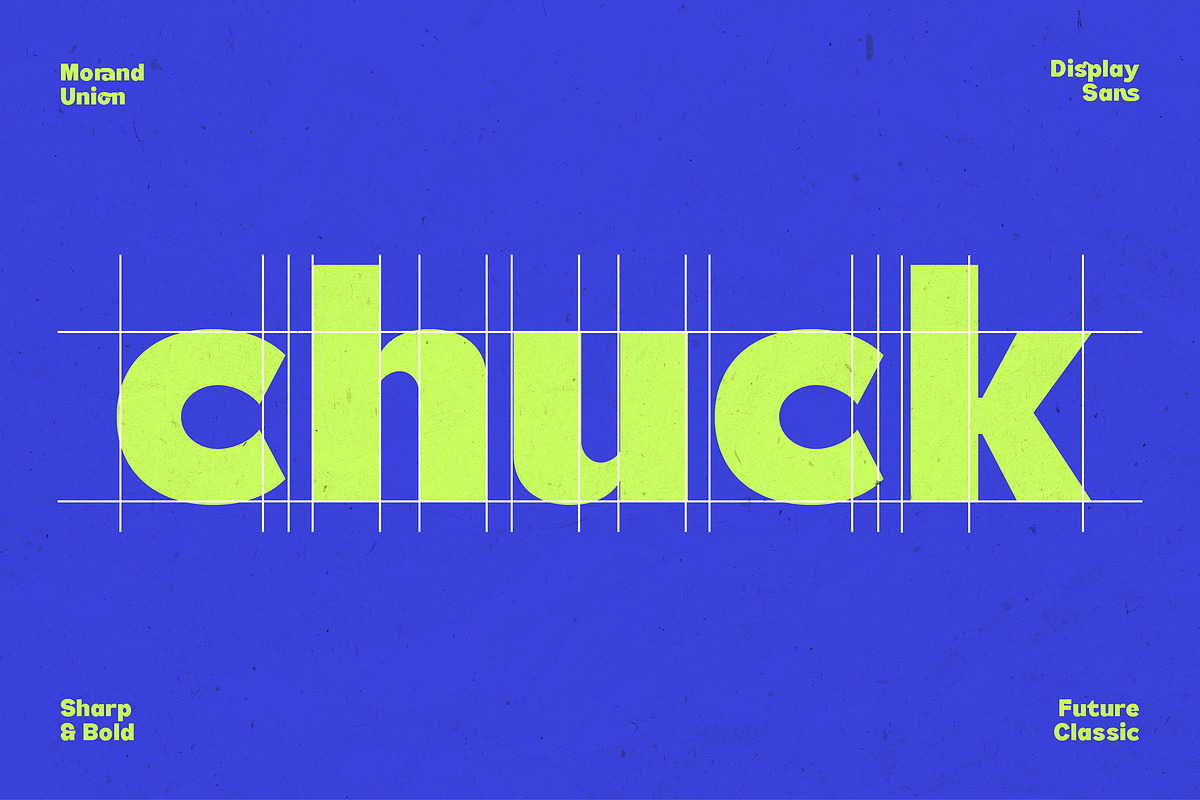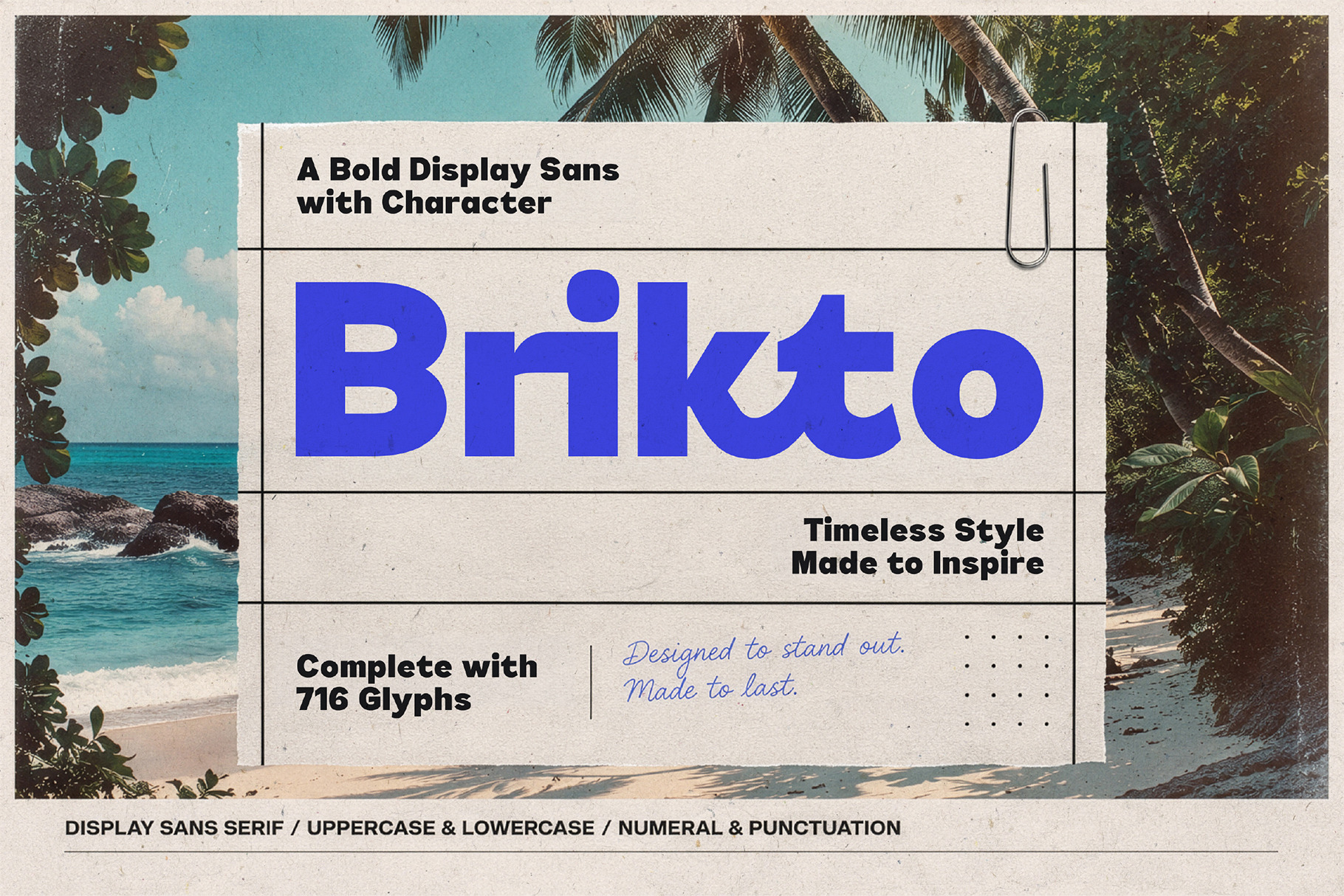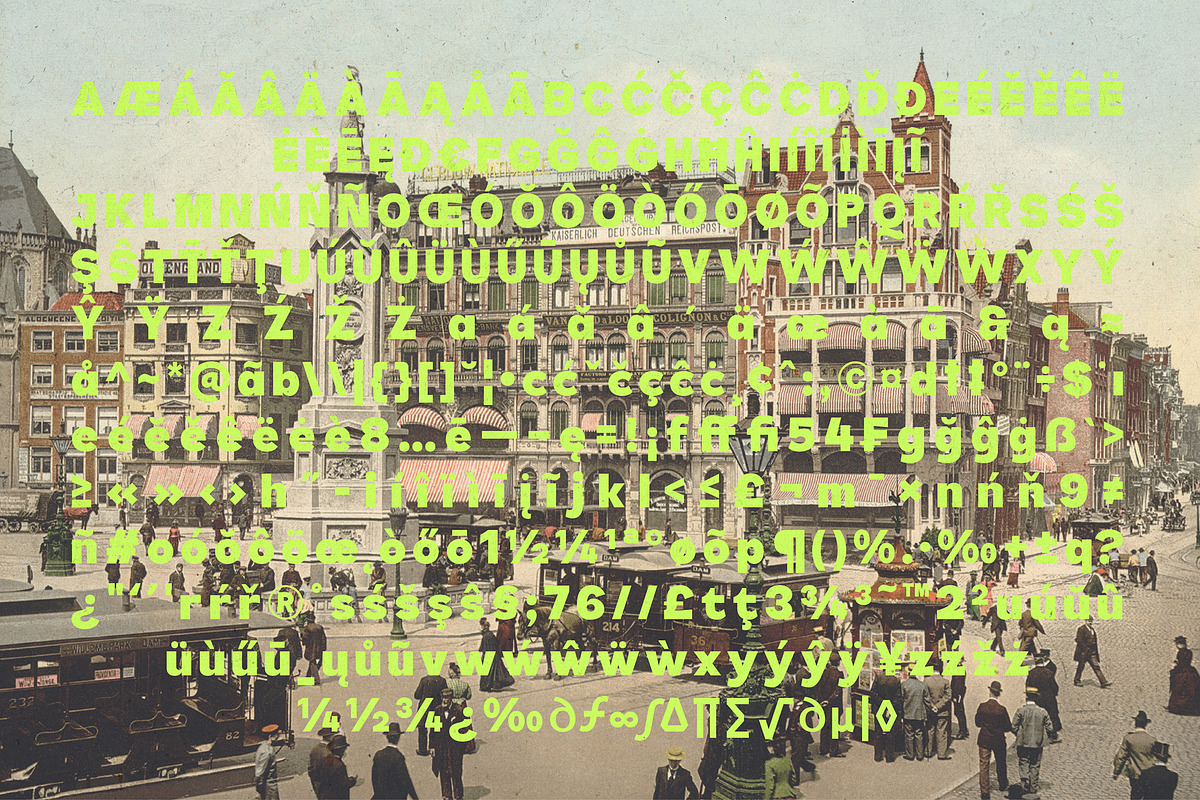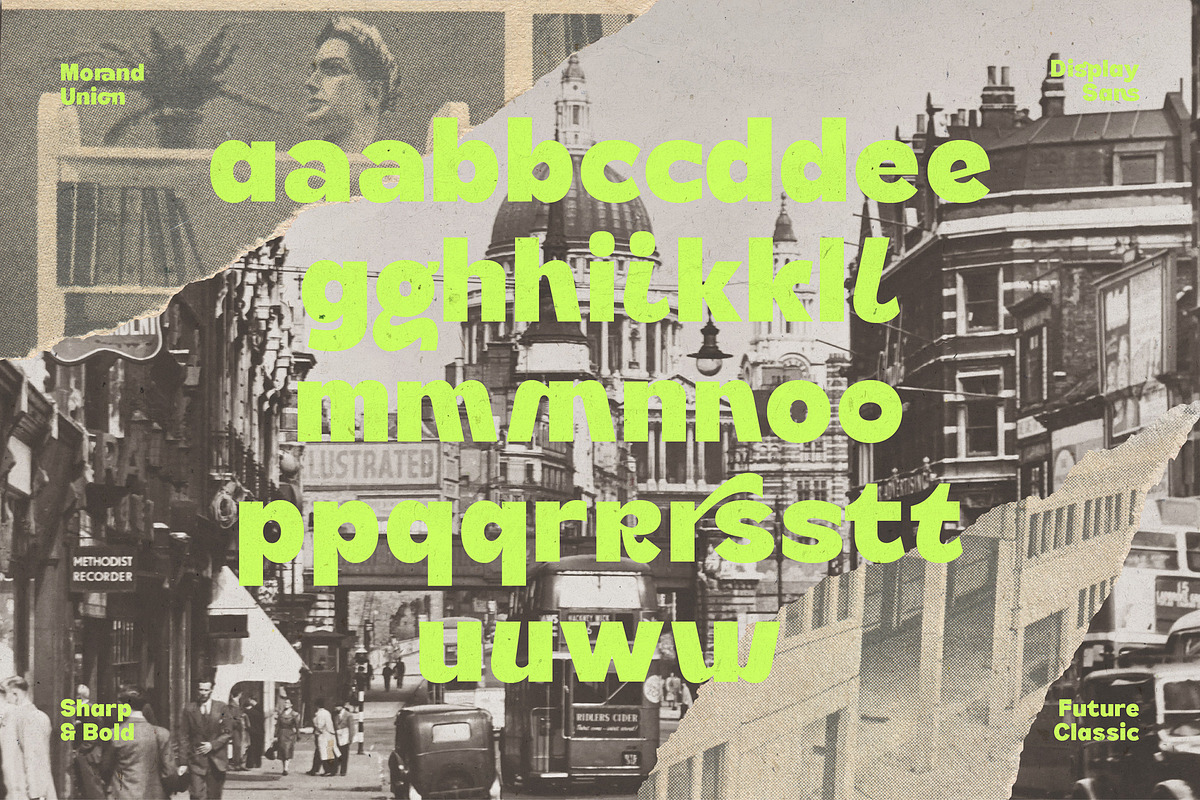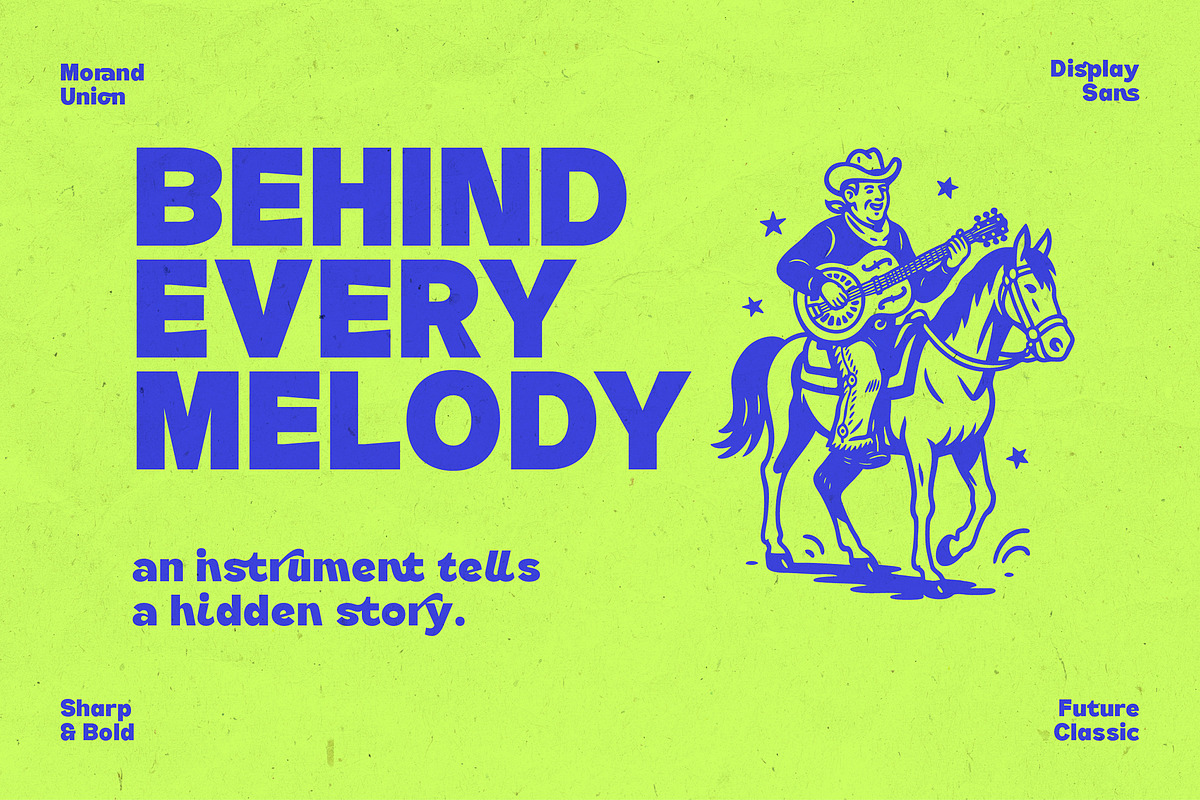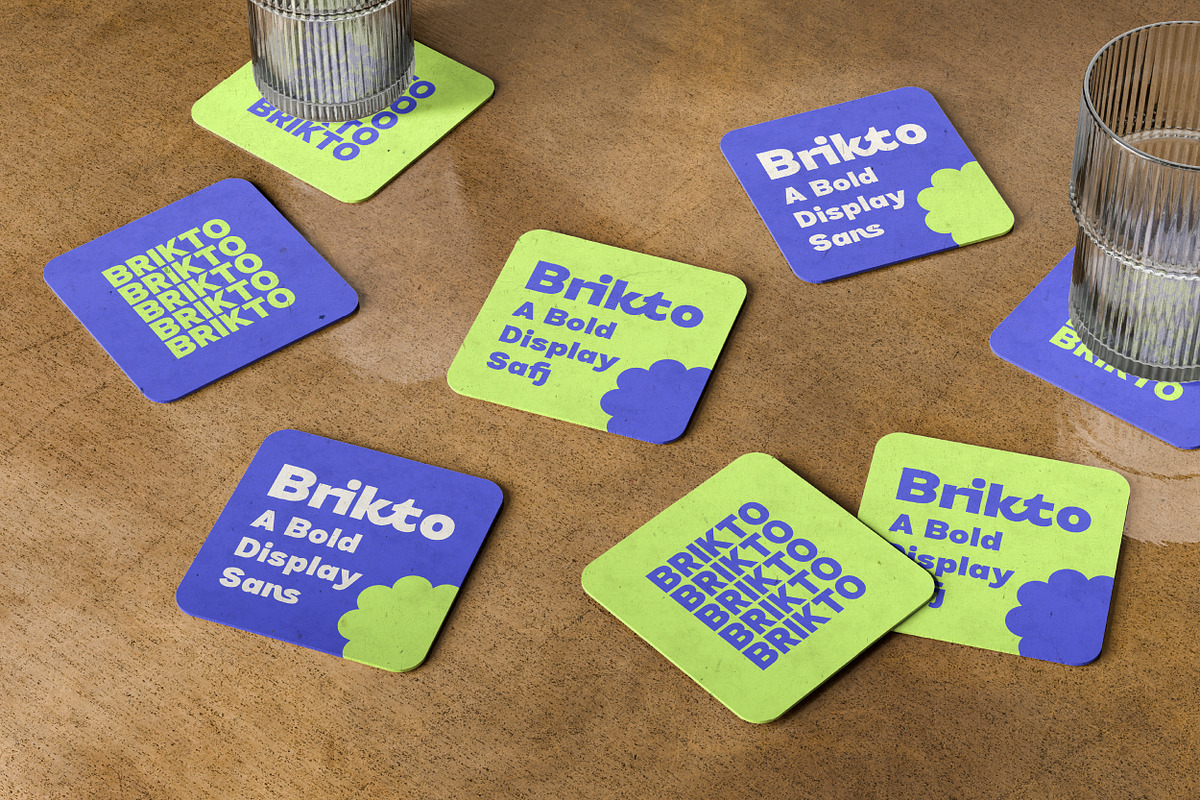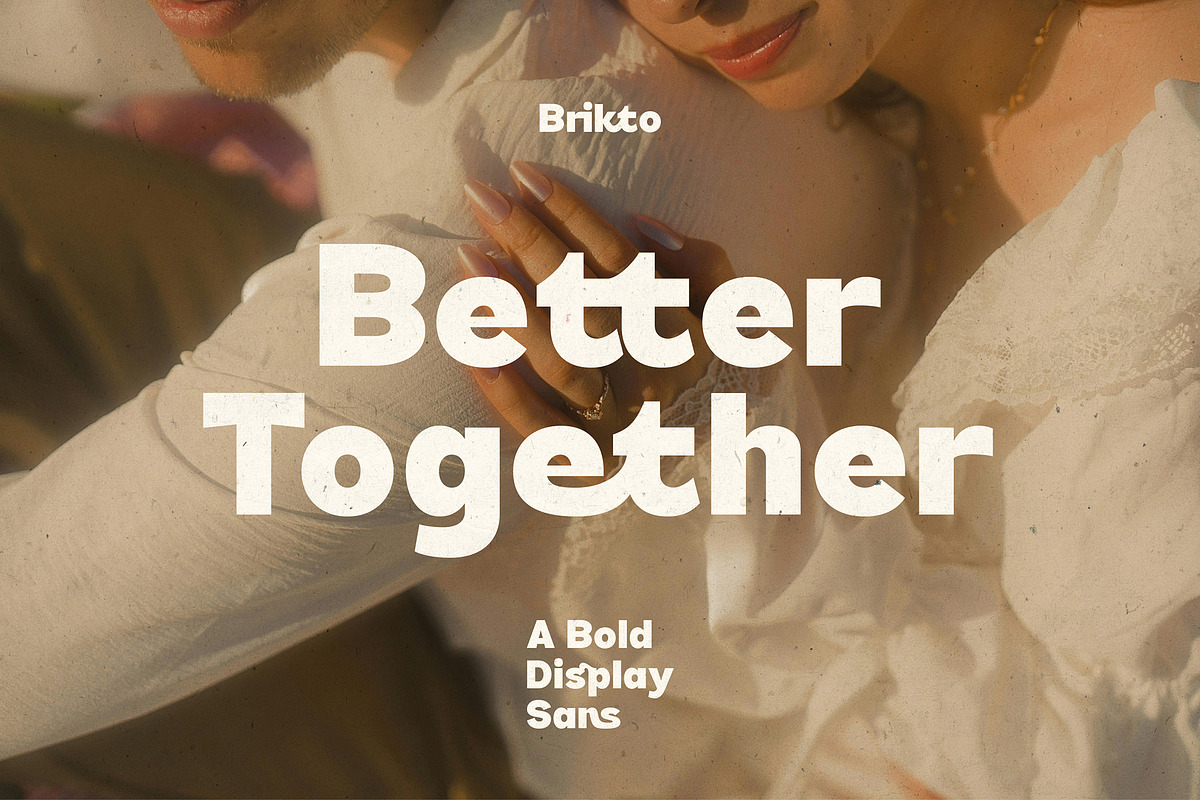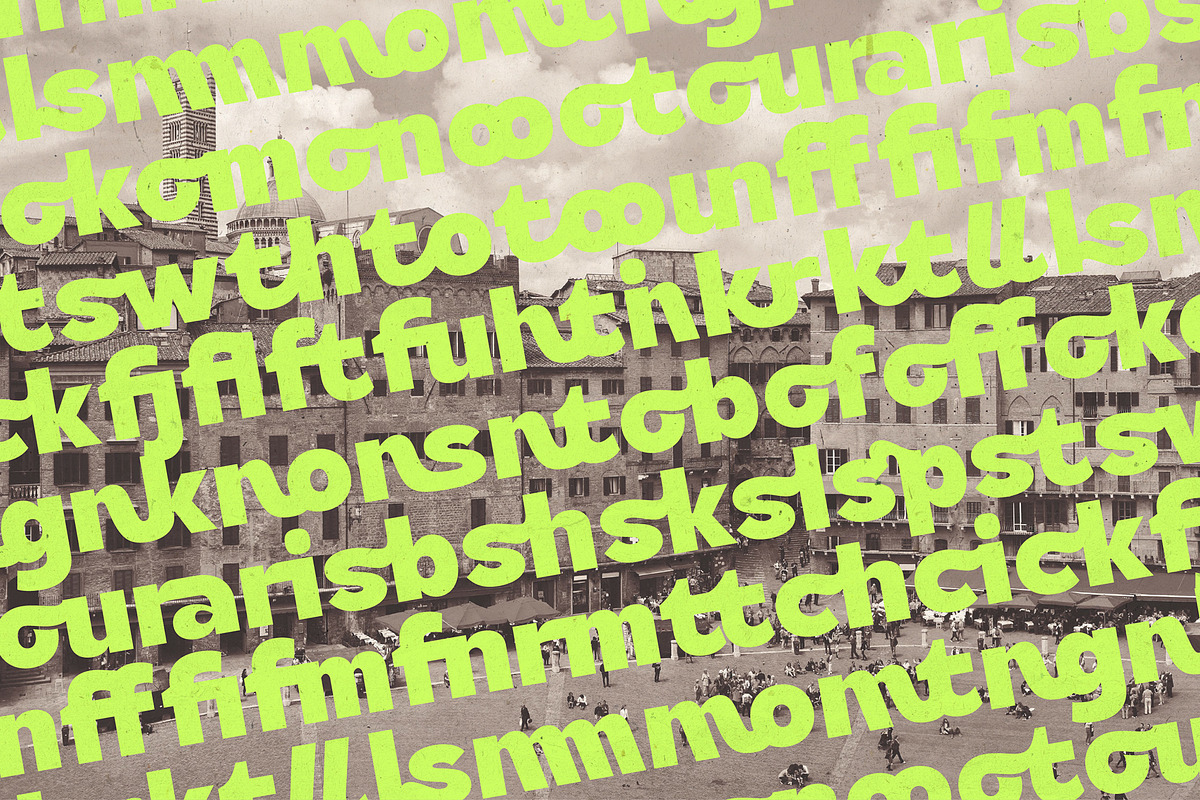
Brikto – Bold Display Sans Typeface
Brikto is a bold display sans typeface designed to make a strong and unforgettable impression. Built with thick geometric forms, smooth curves, and distinctive character details, this font delivers a confident and modern visual presence that instantly stands out.
With its playful yet solid structure, Brikto combines retro-inspired energy with a contemporary edge. The carefully crafted ligatures and alternates create dynamic typography compositions, making every headline feel unique, expressive, and full of personality.
Perfect for posters, branding, packaging, editorial layouts, social media, logos, and large display text, Brikto brings power and creativity into every design. Its bold appearance remains clean and highly readable, making it versatile for both modern and vintage-inspired projects.
\\\* Uppercase & Lowercase
\\\* Numerals & Punctuation
\\\* Ligatures & Alternates
\\\* Multilingual Support
\\\* 716 Glyphs
Brikto is crafted for designers who want typography that feels bold, playful, and full of character.